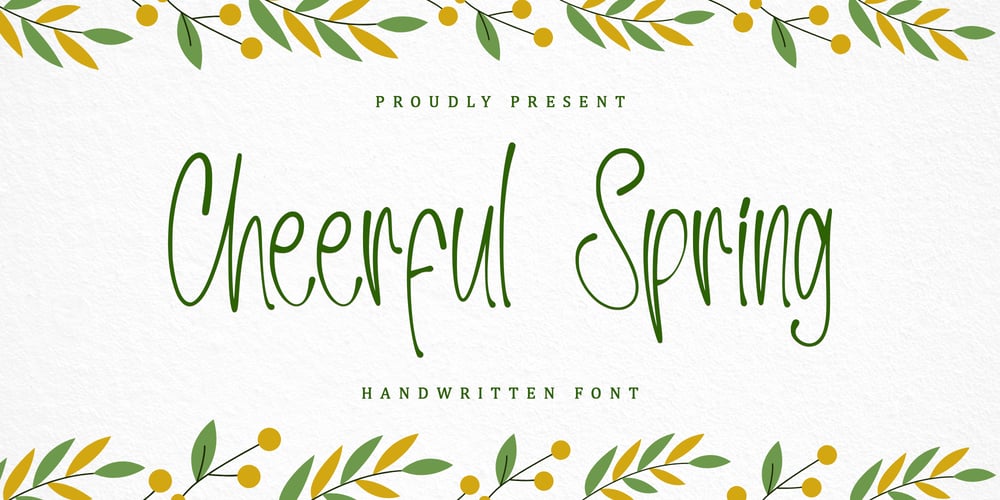
Cheerful Spring Font Family was designed by Alif Ryan Zulfikar and published by Sakha Design. Cheerful Spring contains 2 styles and family package options. Cheerful Spring is a script font that exudes elegance and sophistication, perfect for high-end design projects. It’s flowing strokes and delicate curves lend a graceful touch to any text, while its stylish embellishments add a touch of flair. Ideal for branding, invitations, and other upscale applications, this font is sure to impress.This font is PUA encoded which means you can access all glyphs and swashes effortlessly!